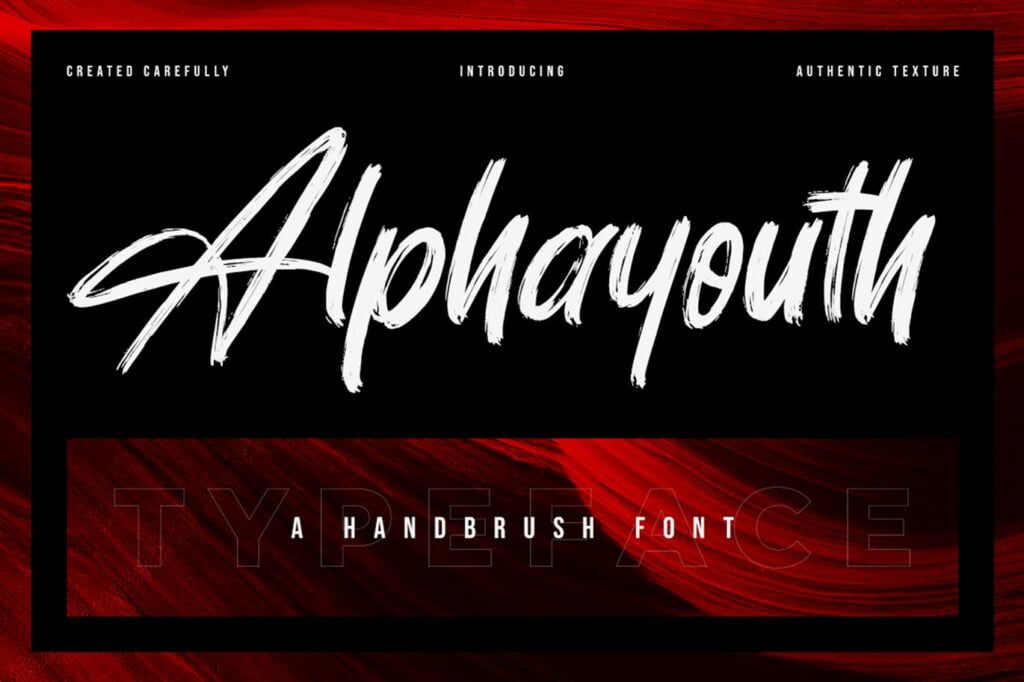
Alphayouth Font
Alphayouth is a unique brush font, perfect for use in modern design projects. This font has a slightly aggressive edge, and works well in displays for use in digital media.
Alphayouth Brush Script Font